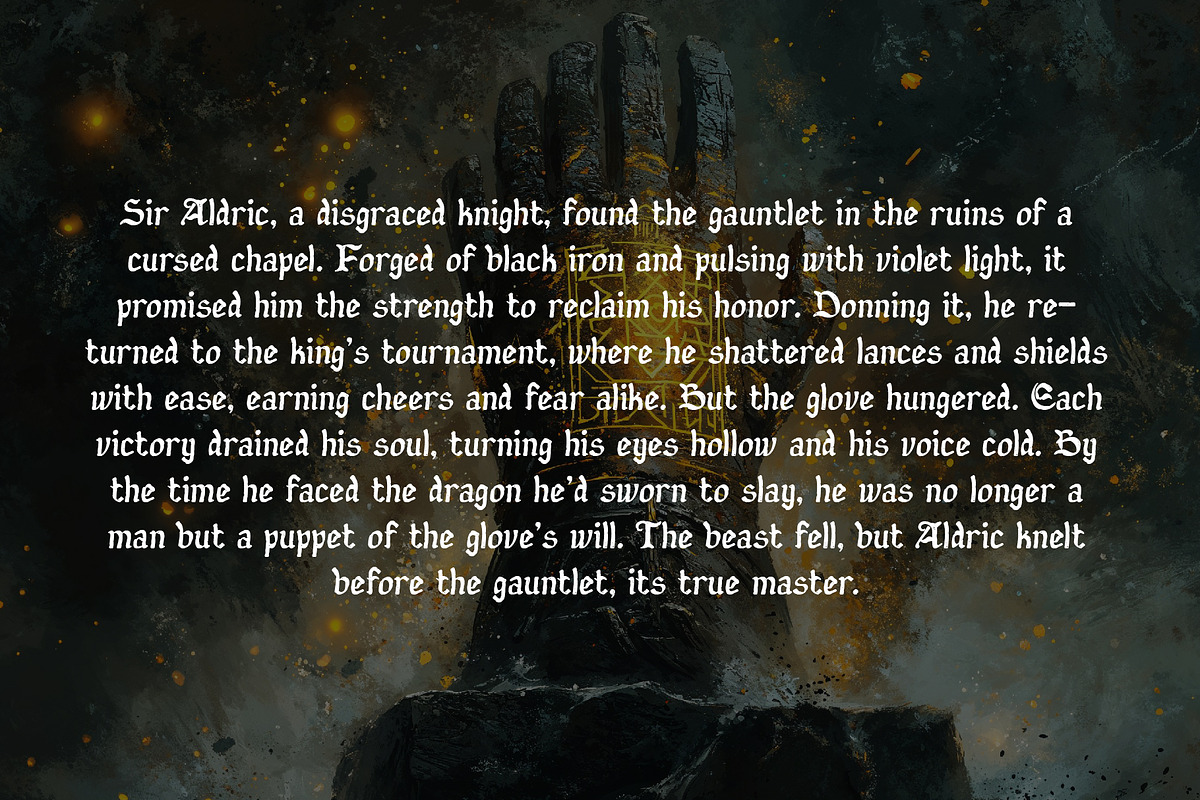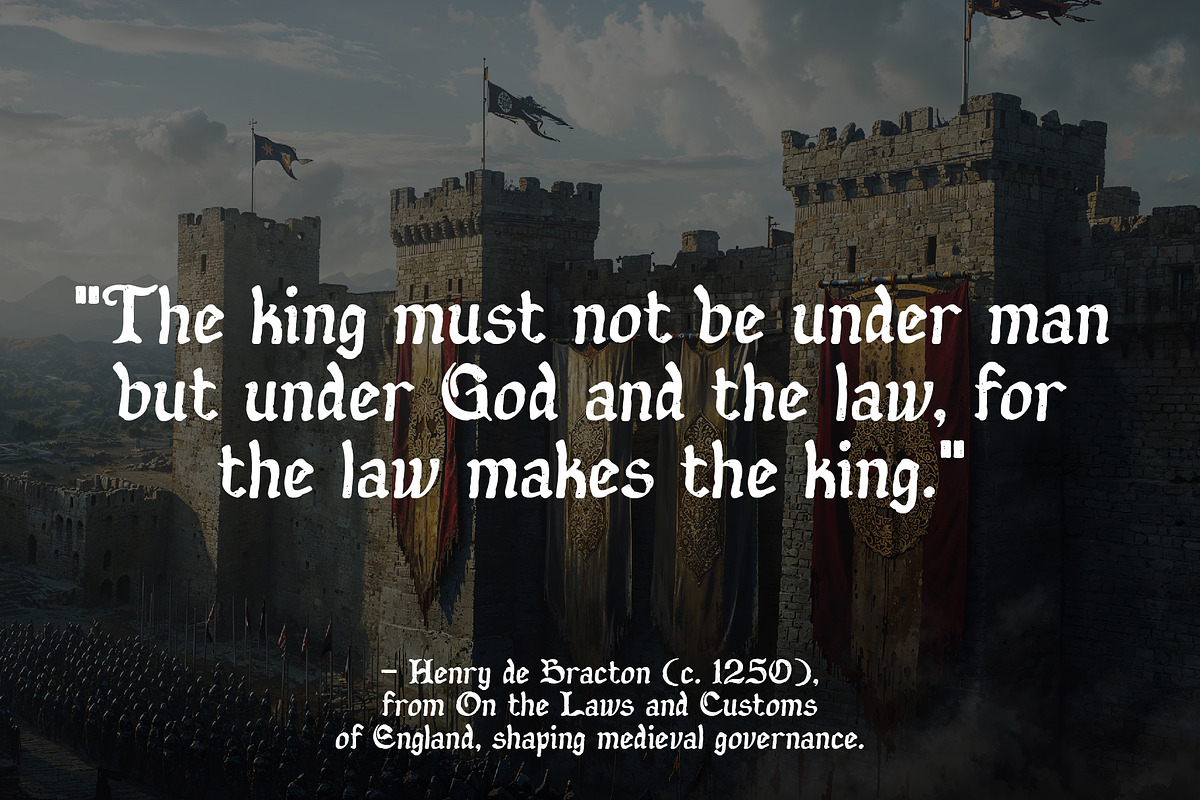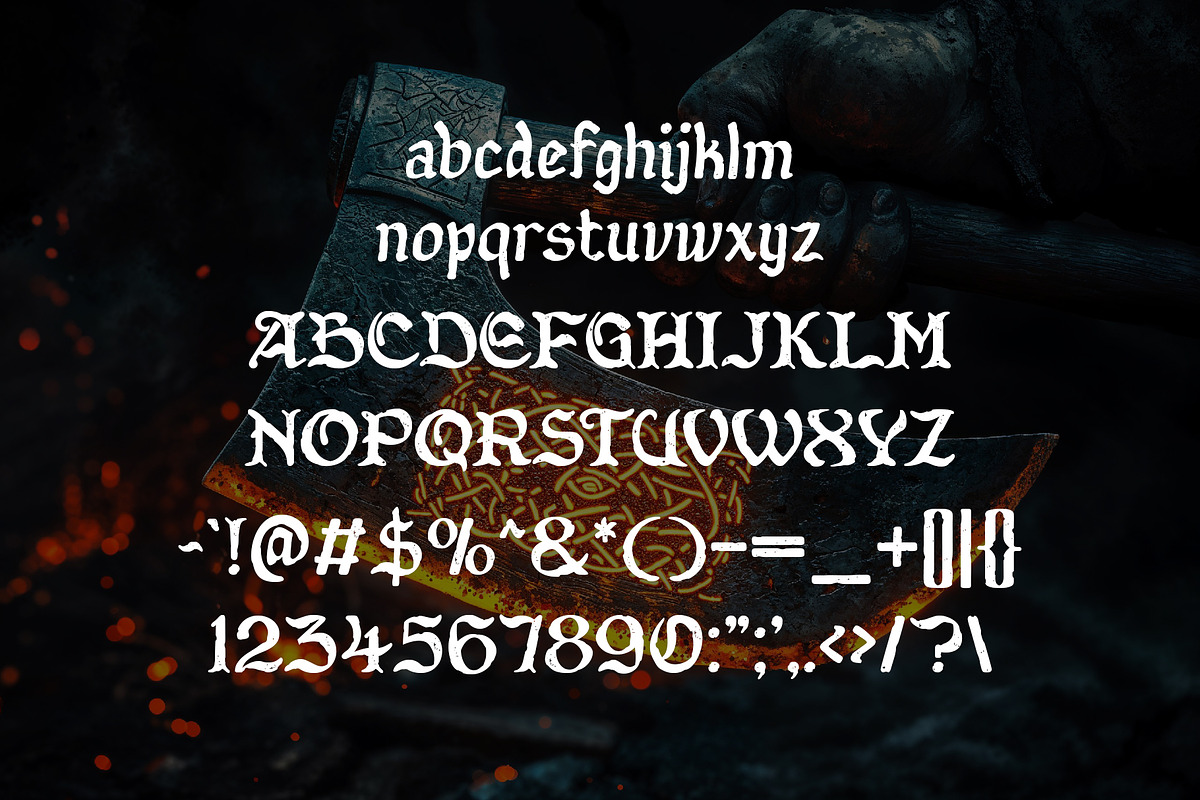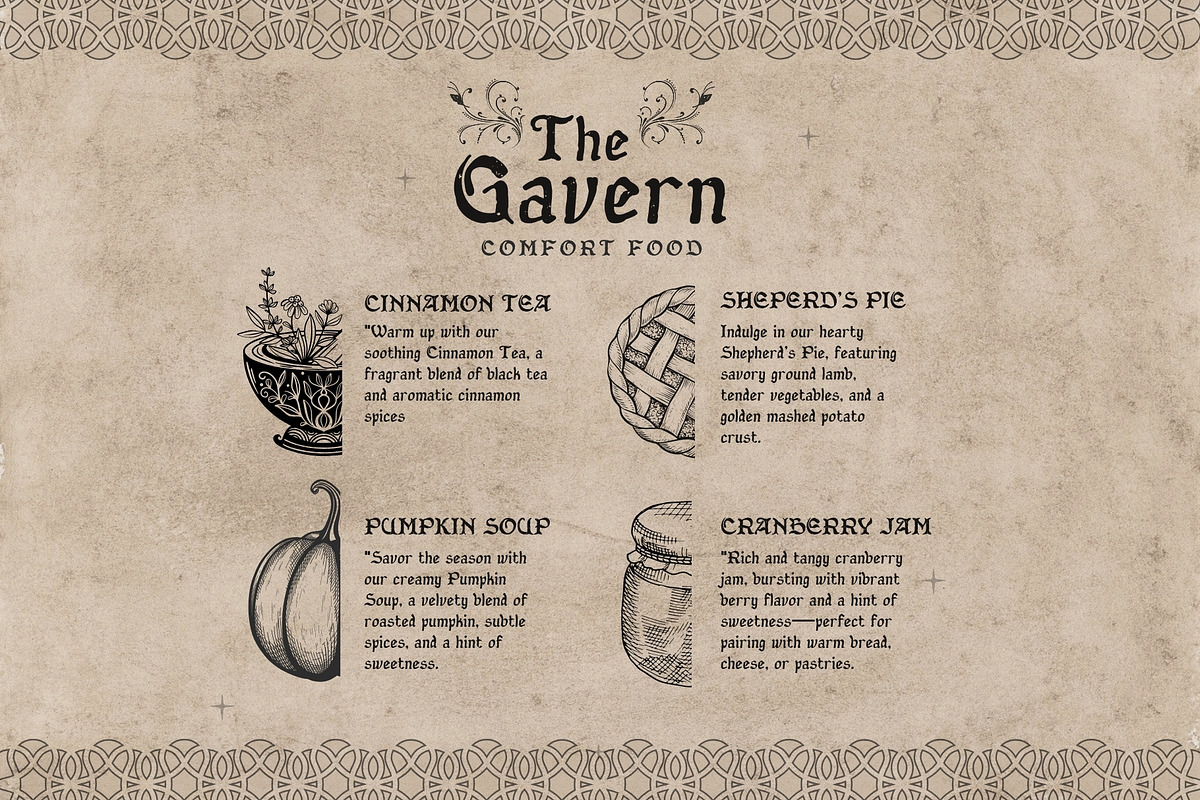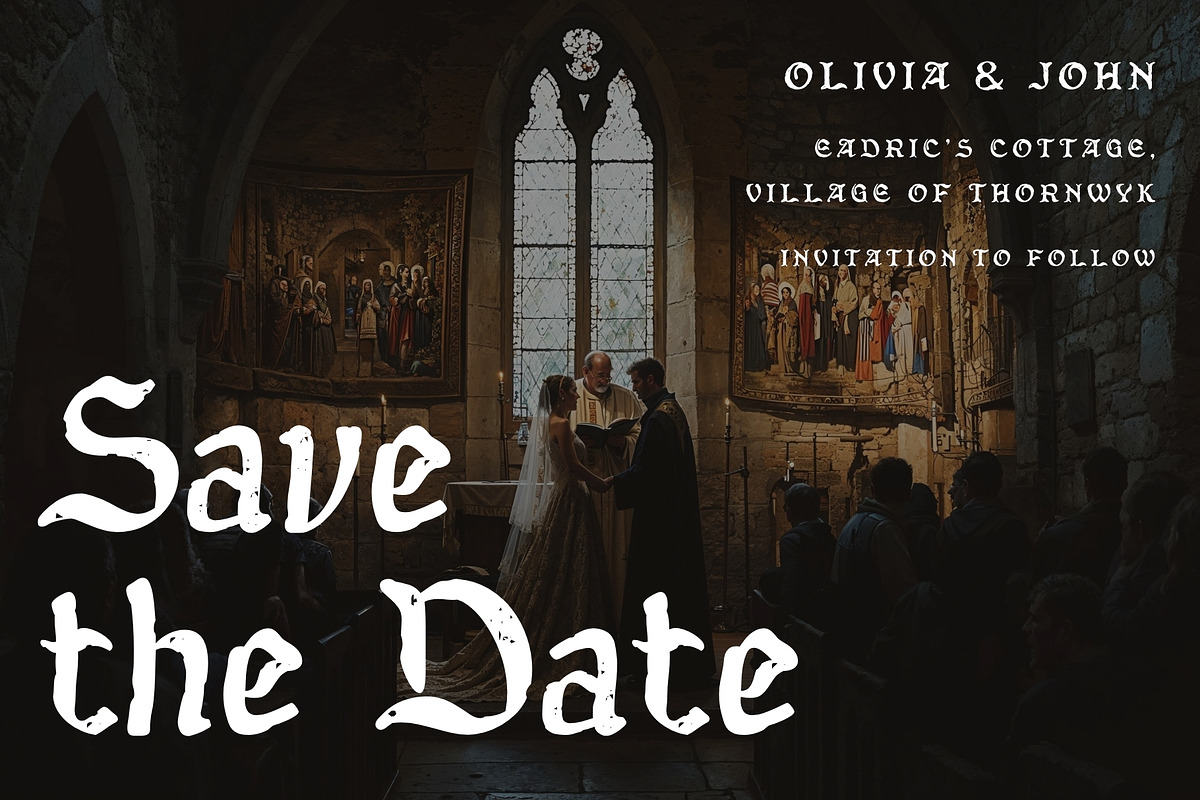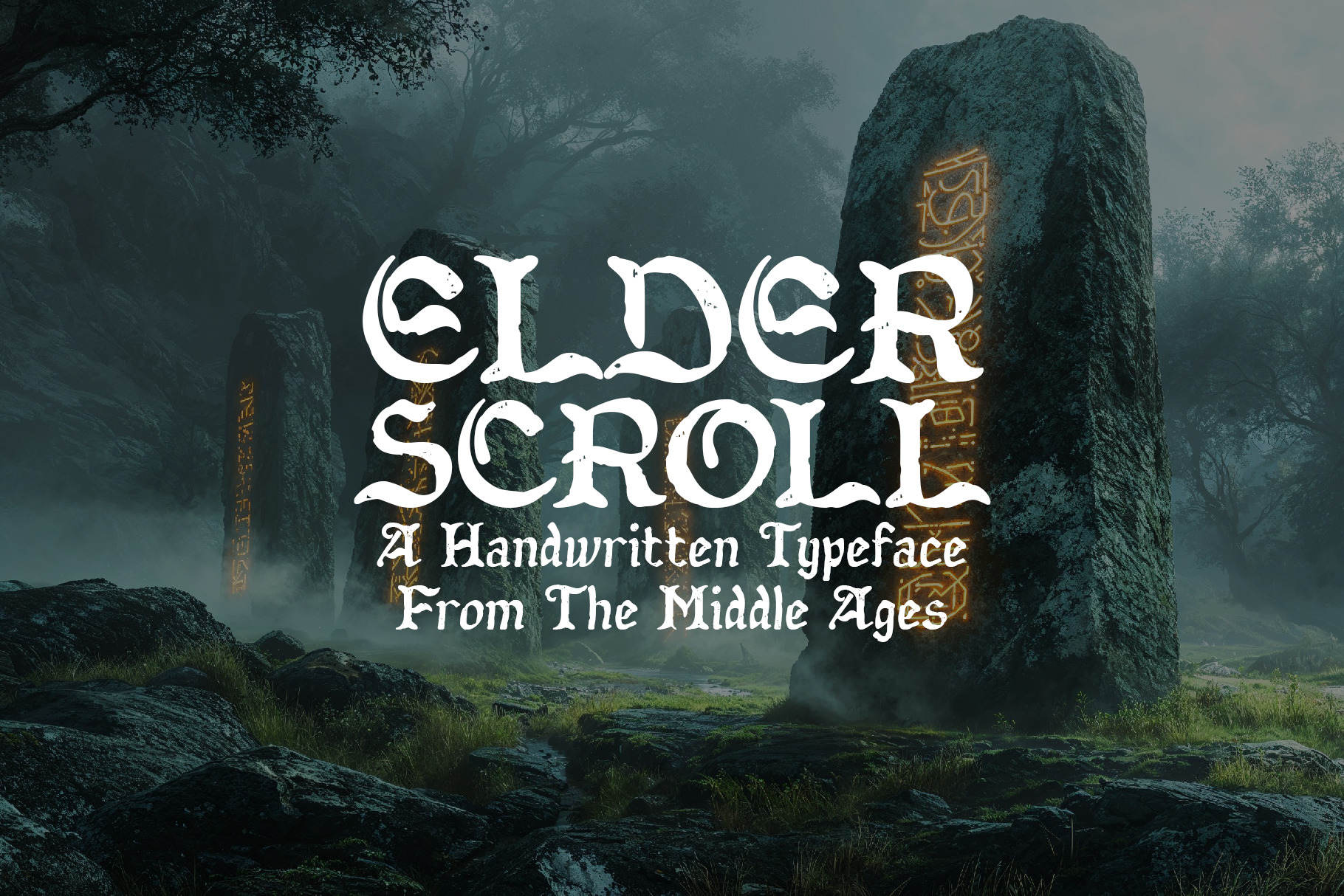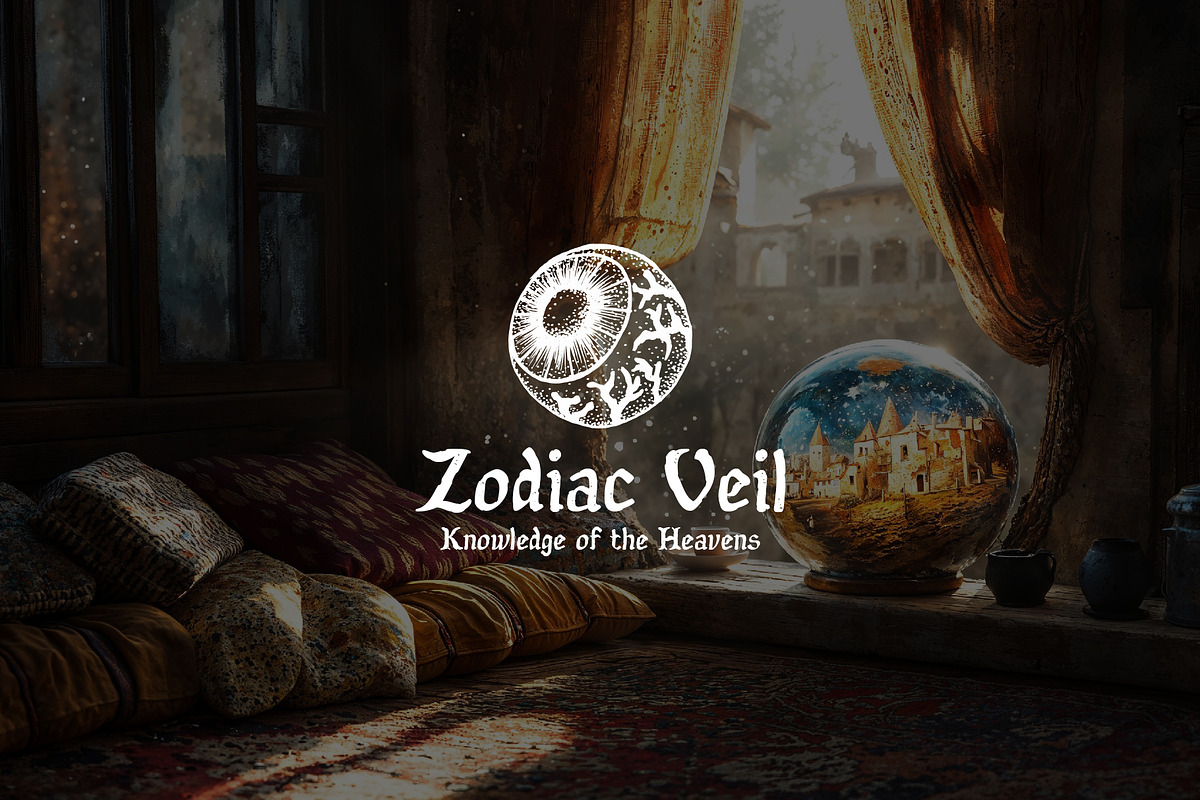
Elderscroll - Middle Ages Typeface
Step into a world of forgotten tomes and legendary tales with Elder Scroll, a masterfully crafted handwritten typeface inspired by the Middle Ages. Designed to evoke the mystique of ancient manuscripts, weathered scrolls, and forgotten kingdoms, this font is perfect for antique, medieval, Old English, and fantasy-based projects.
With its rugged yet elegant strokes, Elder Scroll embodies the artistry of medieval scribes, making it ideal for book covers, RPG designs, historical branding, and enchanted storytelling. Each letter feels as if it was meticulously inked by hand on parchment, ready to chronicle the myths of kings, sorcerers, and warriors. Whether you're crafting a fantasy novel, designing a royal proclamation, or bringing historical authenticity to your work, Elder Scroll will transport your audience to a world where magic and legend intertwine.
Unlock the secrets of the past. Let Elder Scroll tell your story.